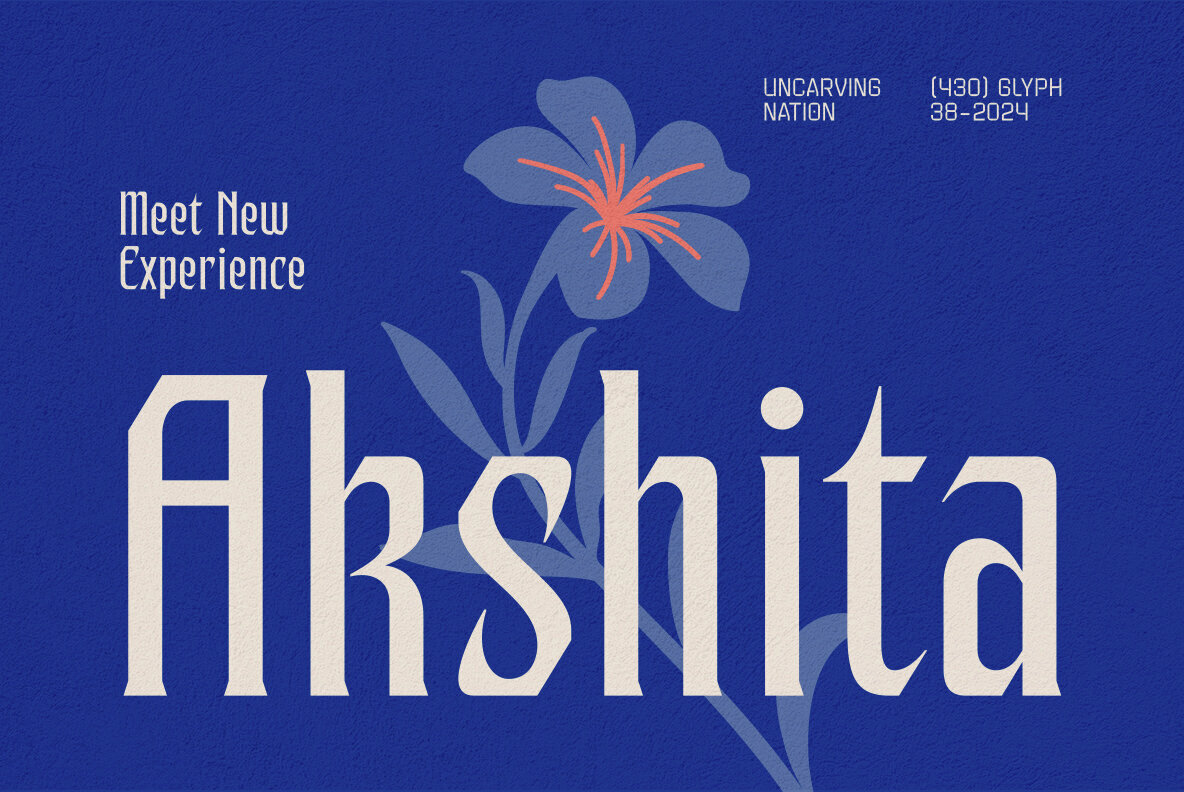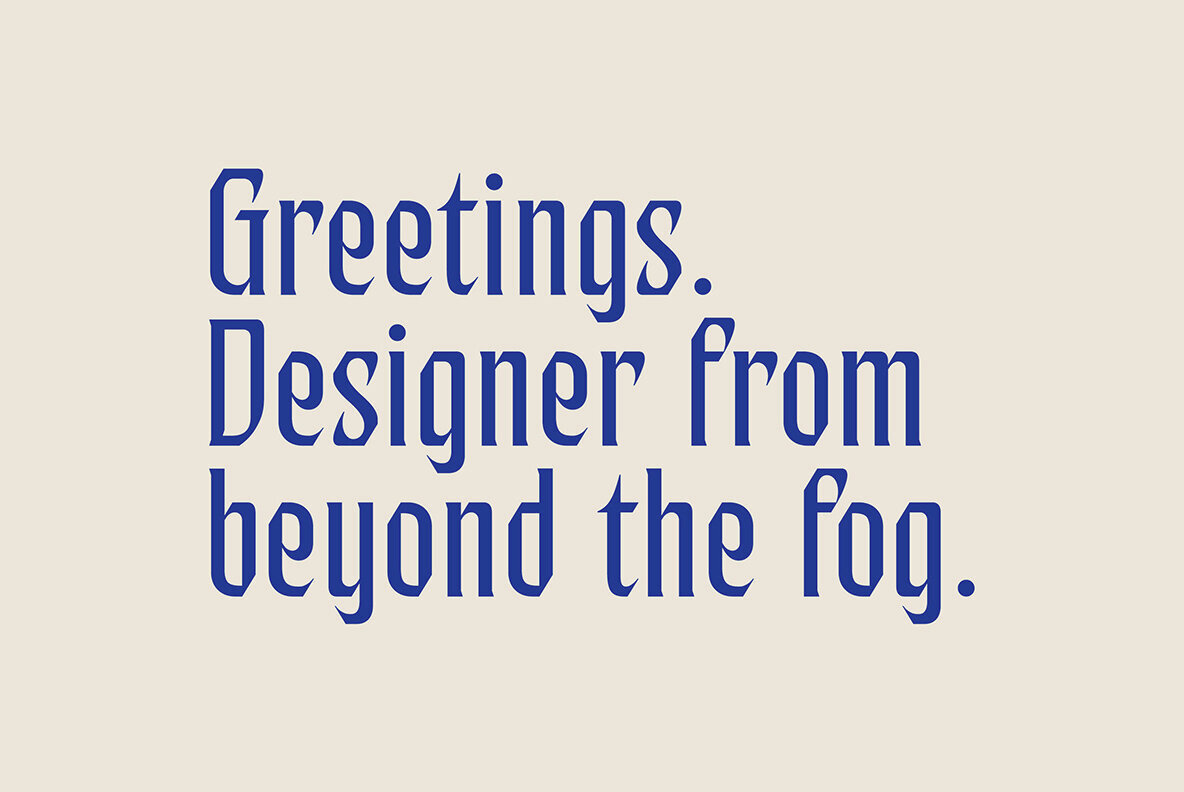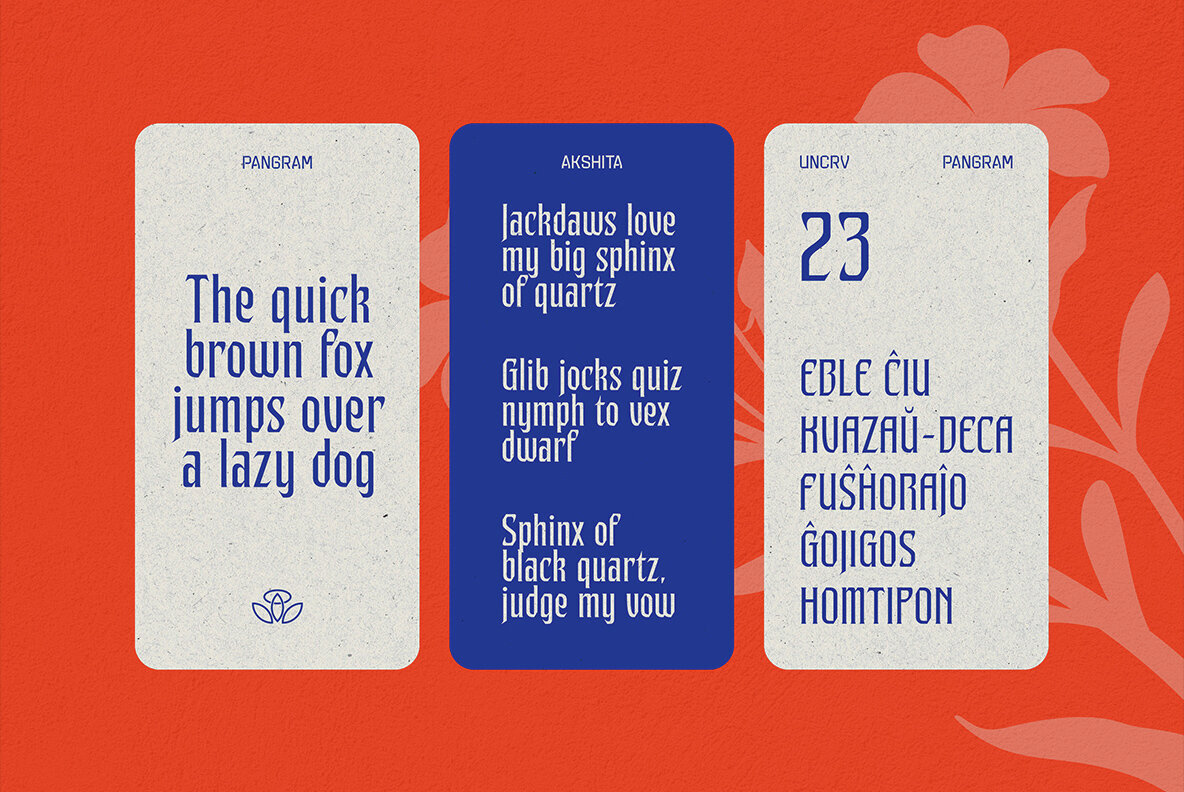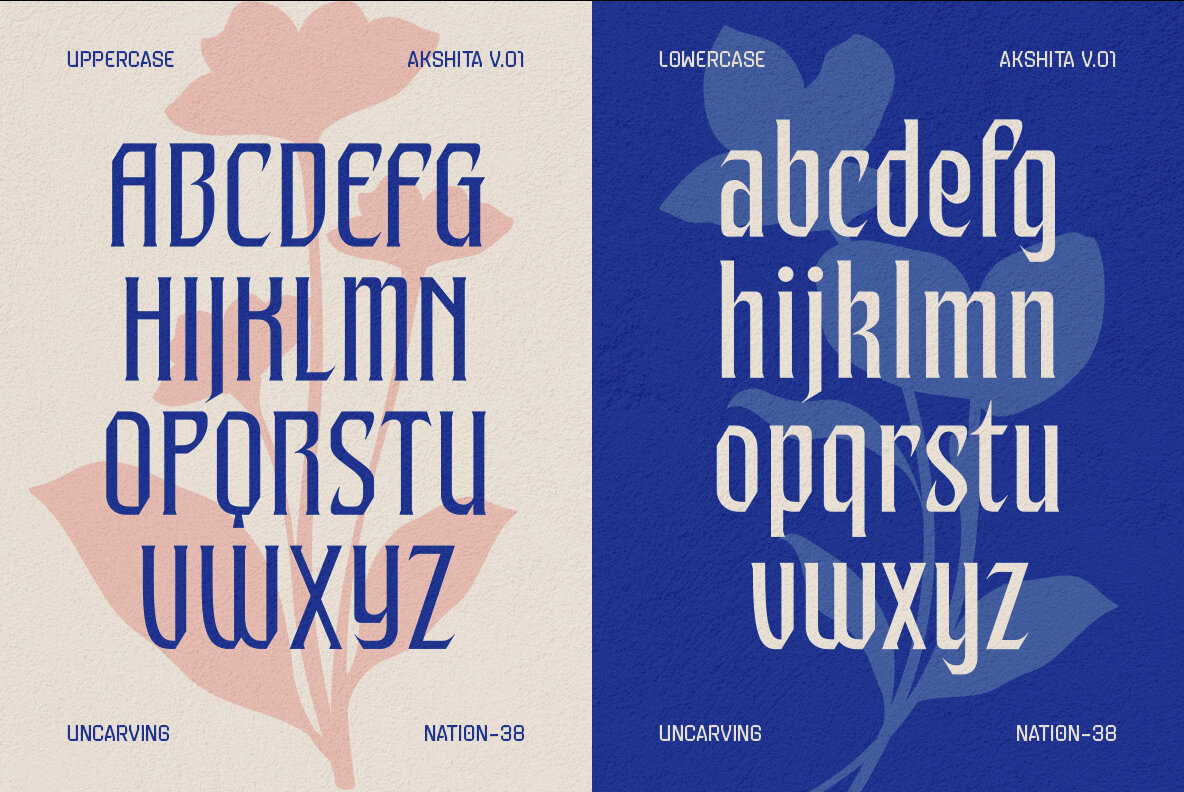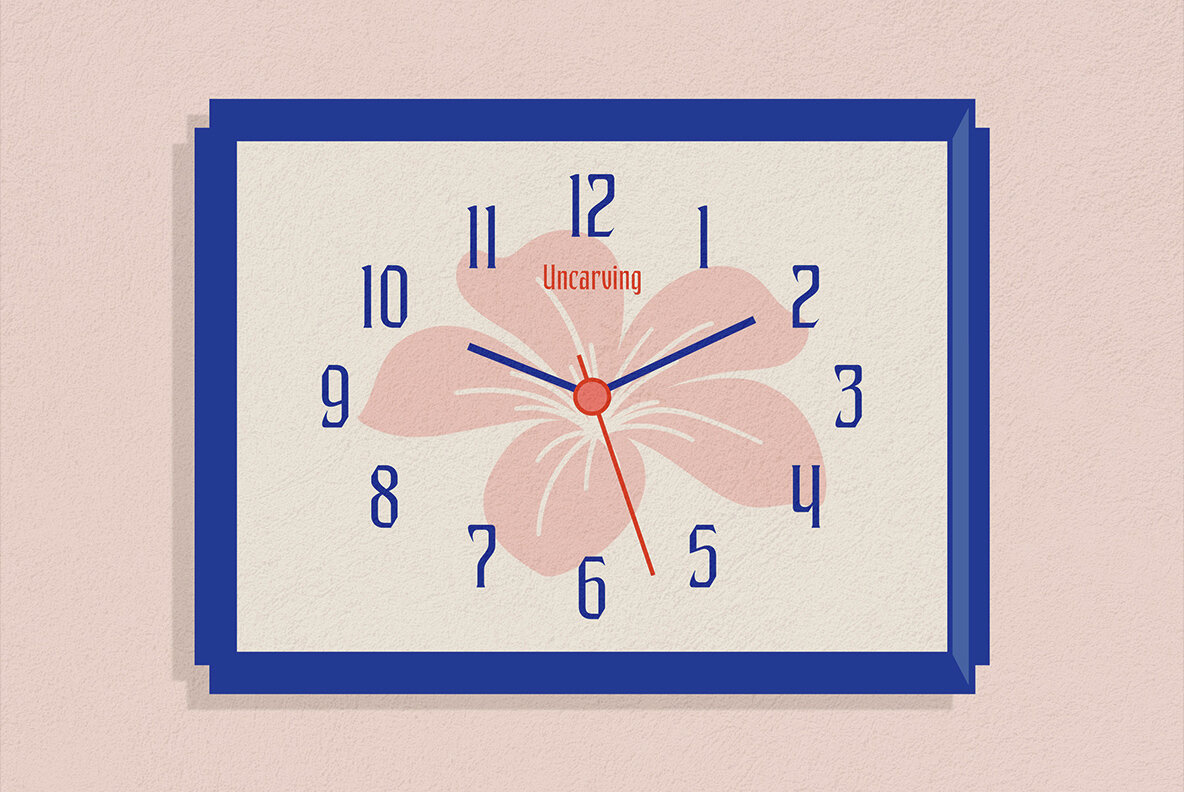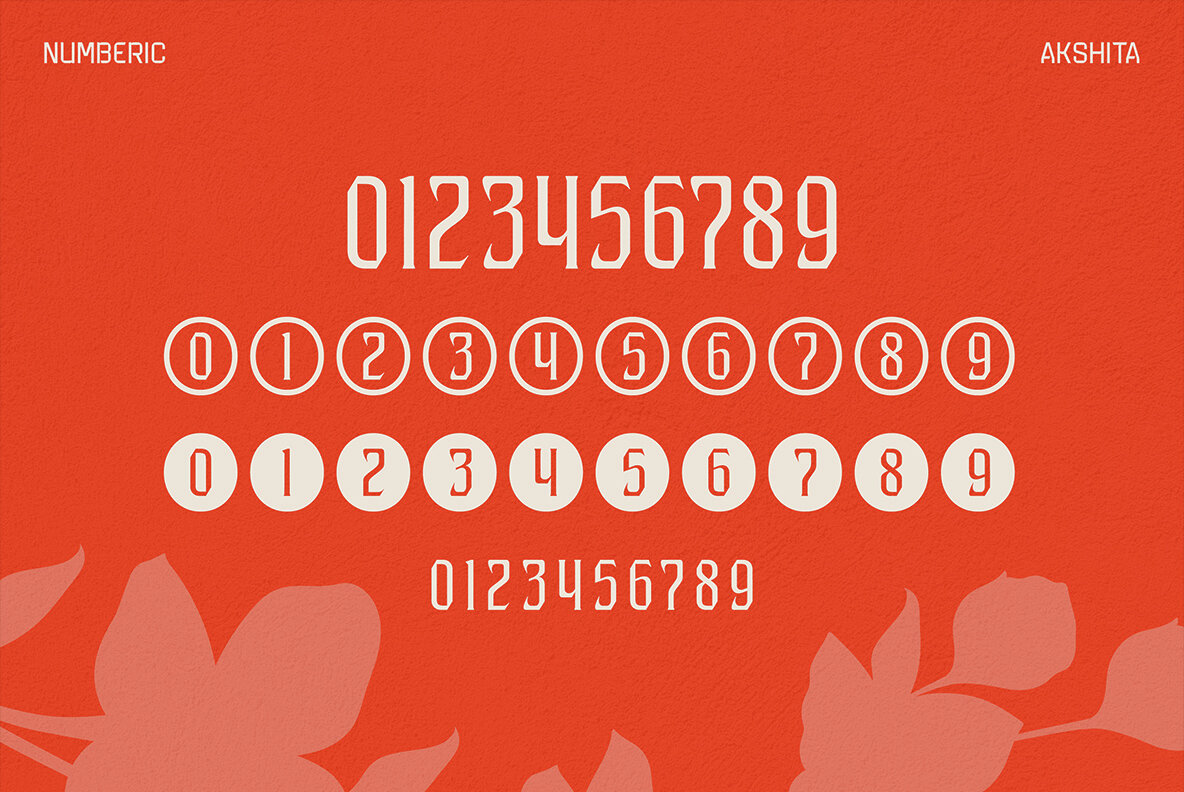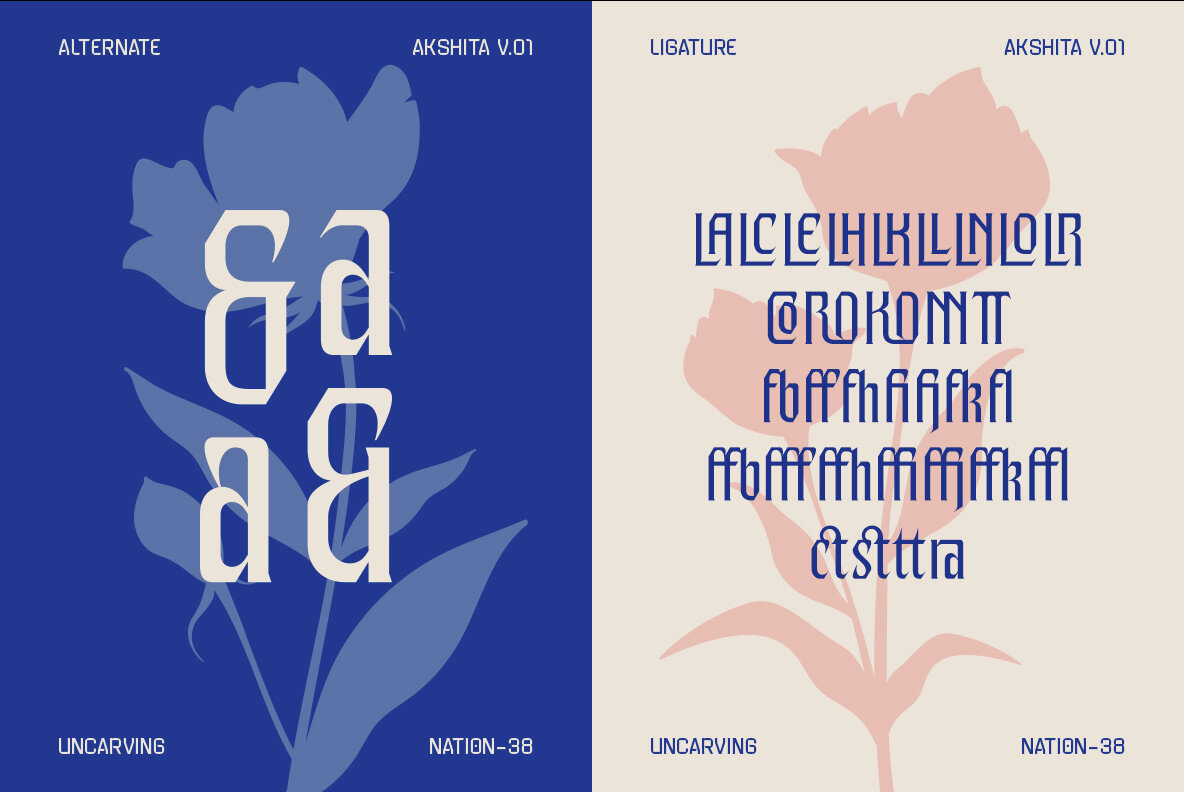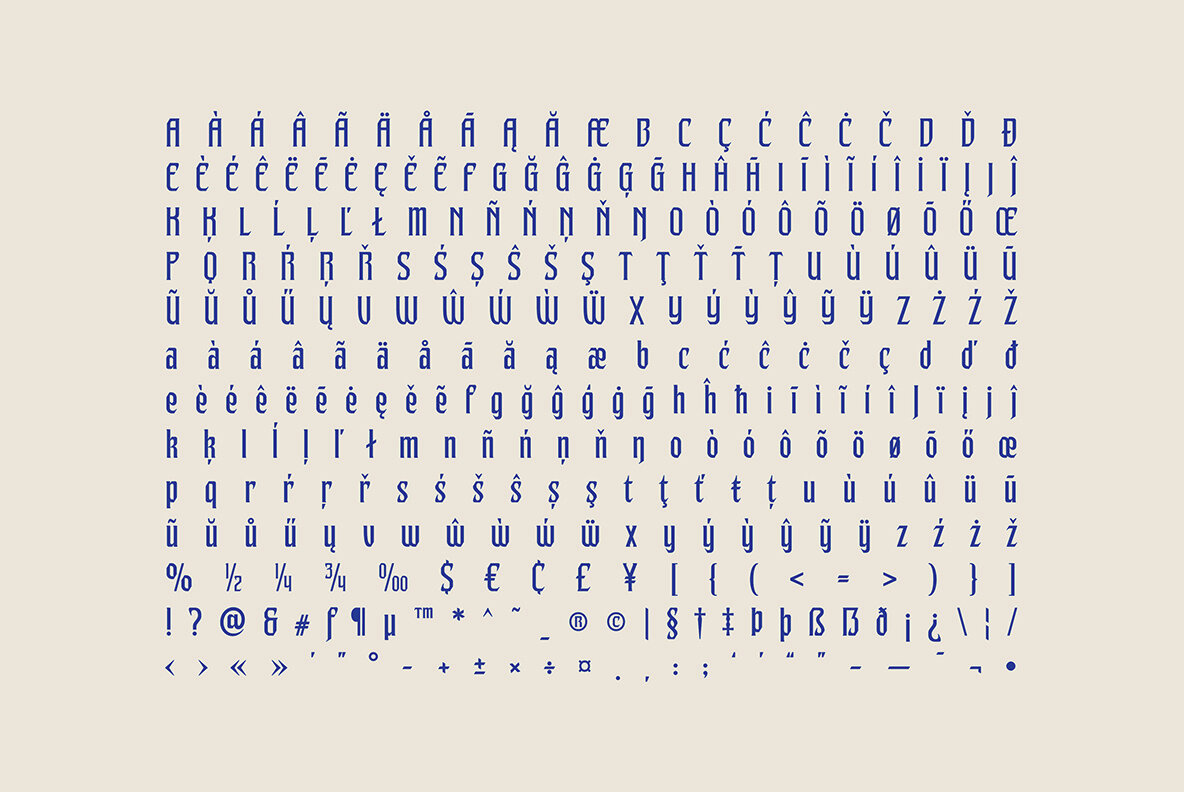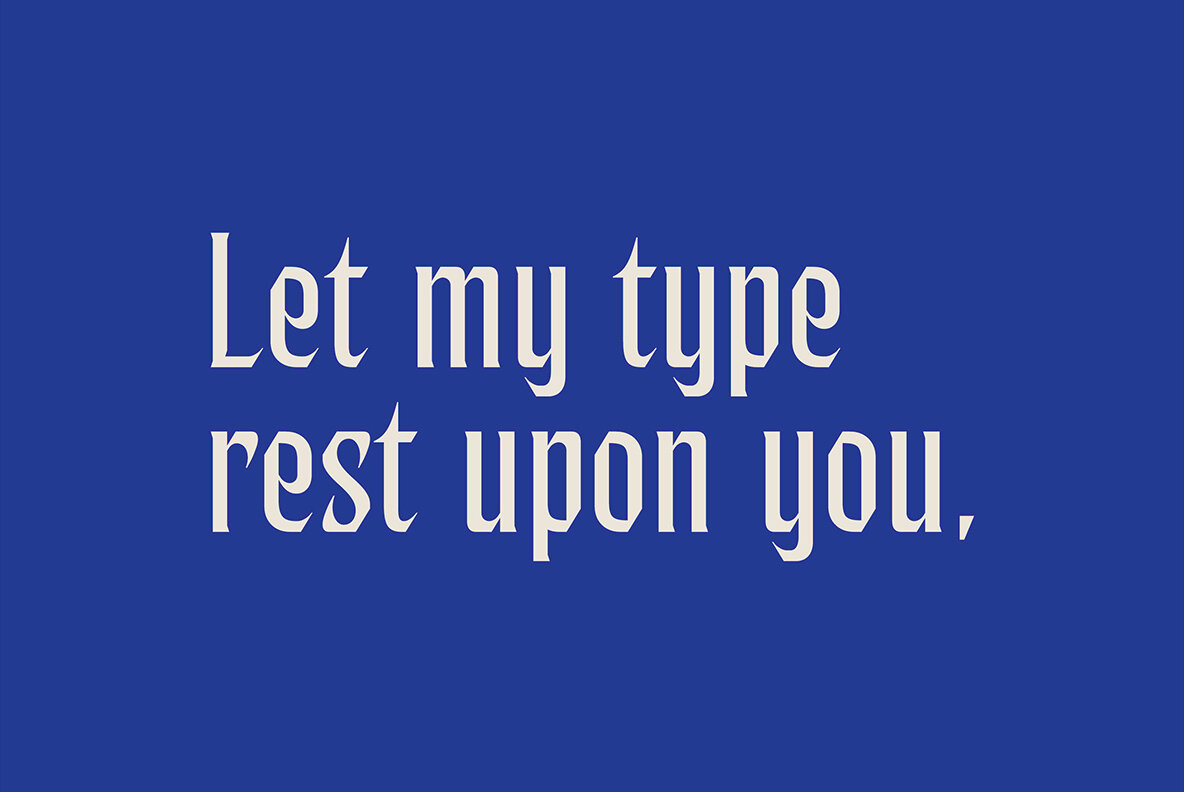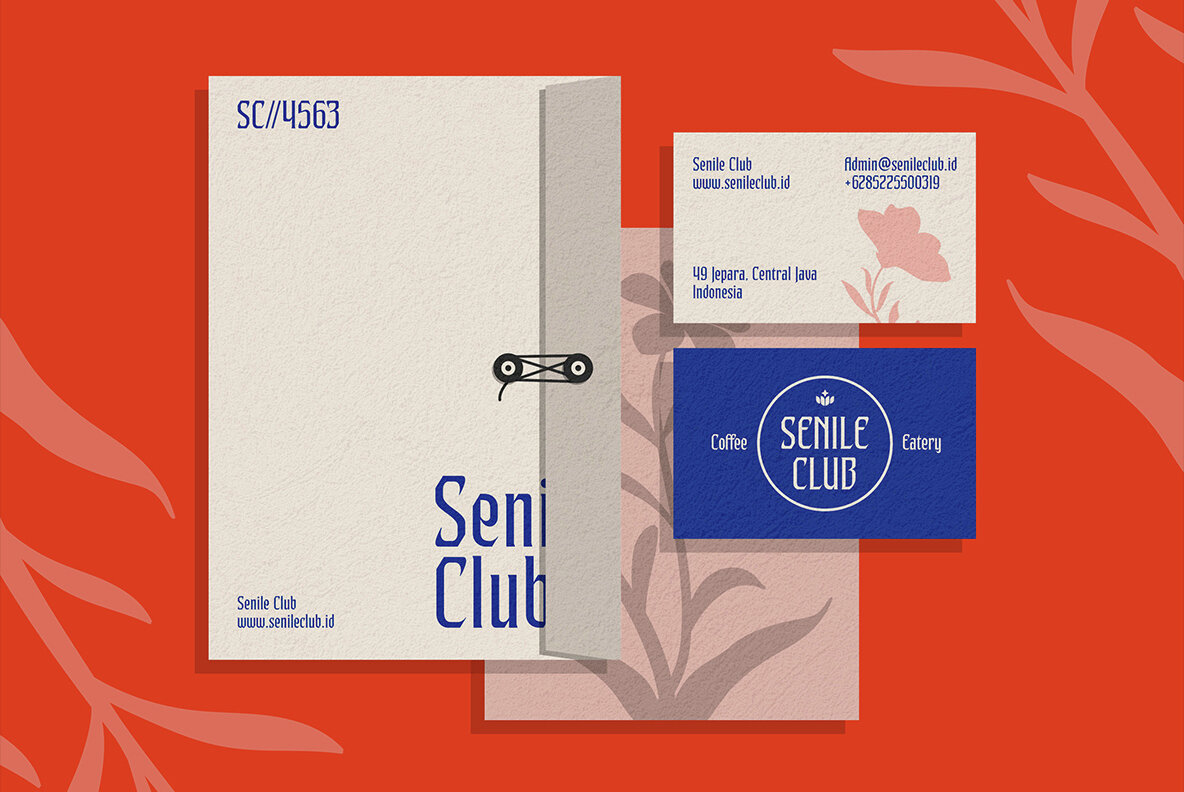
Akshita Font
Meet Akshita, a distinctive display font that gracefully marries the classic elegance of Garalde fonts with a contemporary twist. This unique reinterpretation showcases the artistic richness of traditional styles while delivering a modern flair. Perfect for creating bold statements, Akshita stands out in larger sizes, making it an exceptional choice for headings and titles.Akshita: Timeless Elegance in Display Fonts
Versatile Design Applications